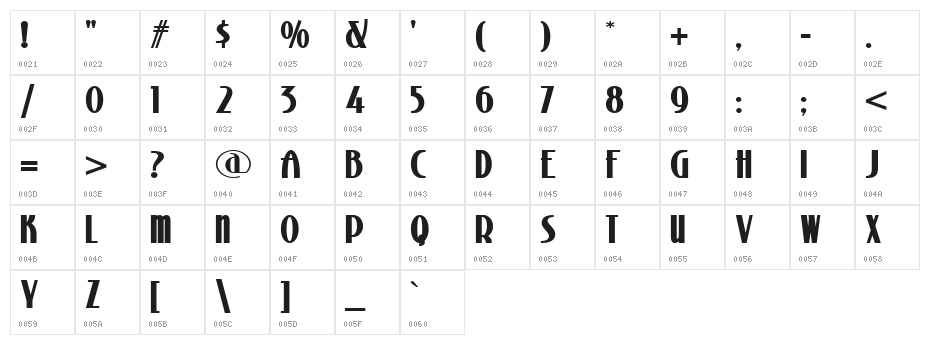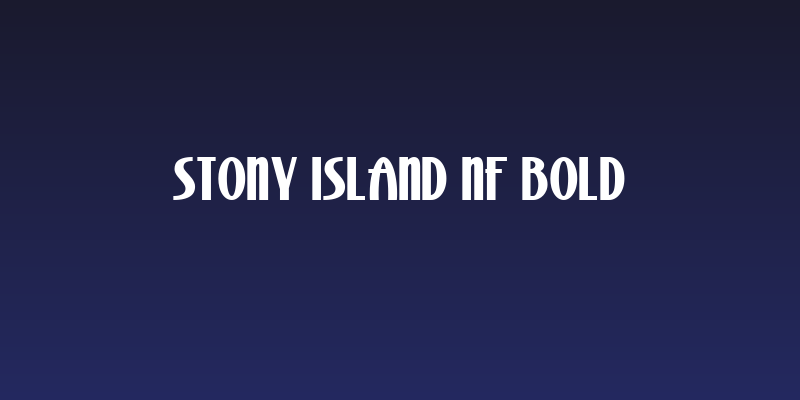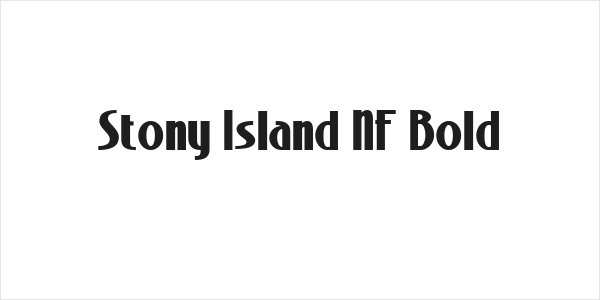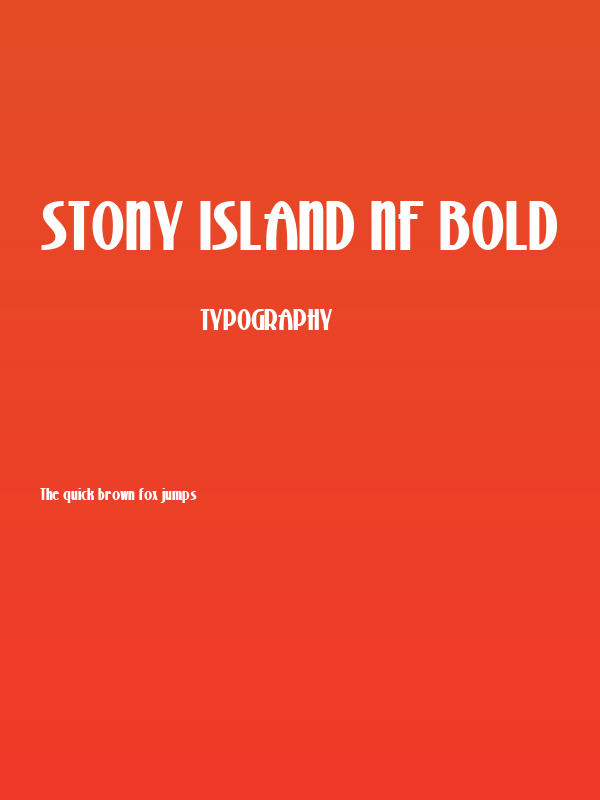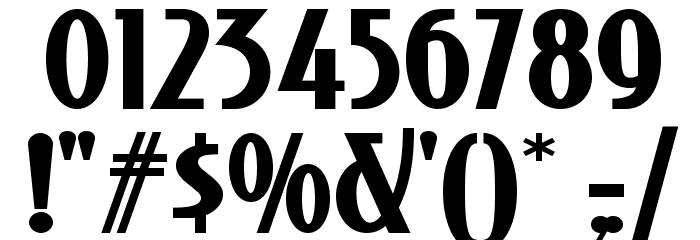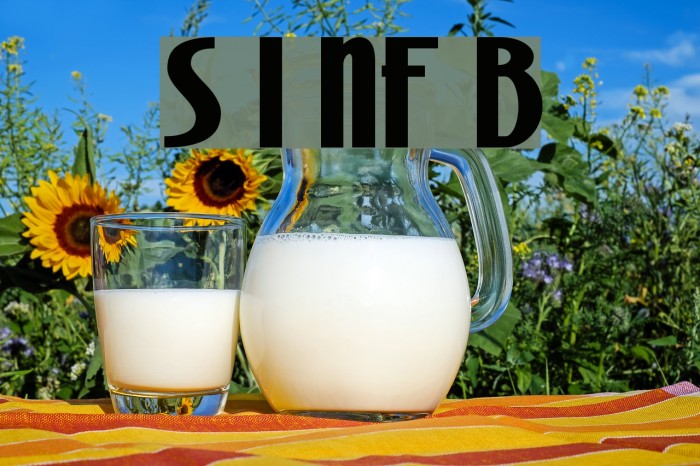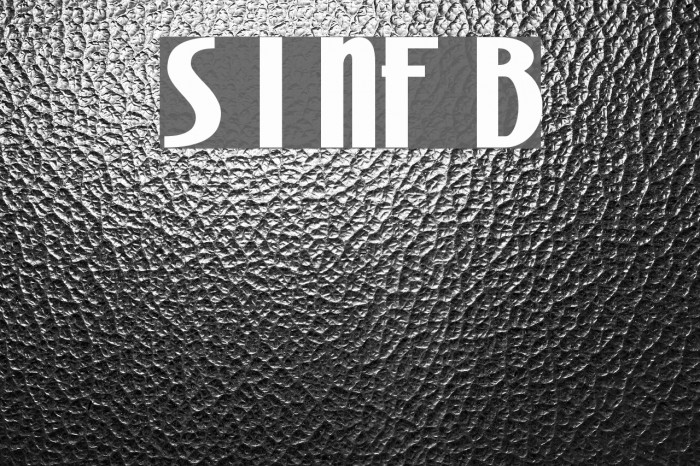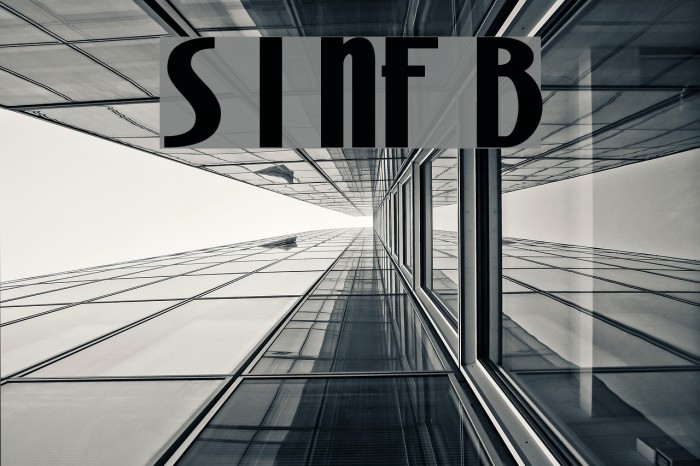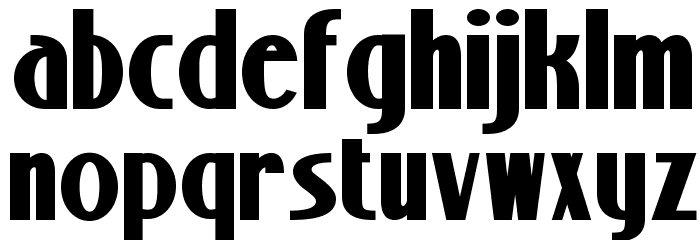
Stony Island NF Bold Font
Stony Island NF Bold Description
This bold and striking font features a strong presence with its thick, heavy strokes and slightly condensed letterforms. The uppercase letters are tall and commanding, while the lowercase maintains a consistent weight, providing a cohesive look across different text sizes. The font's design includes subtle curves and sharp angles, giving it a modern yet slightly retro feel. Its boldness makes it ideal for grabbing attention, while the uniformity in its characters ensures readability. The numbers and special characters are designed to match the bold style, making them stand out effectively in any composition.
| Proposed Projects | Ideal for posters, headlines, branding, and any project requiring a strong visual impact. |